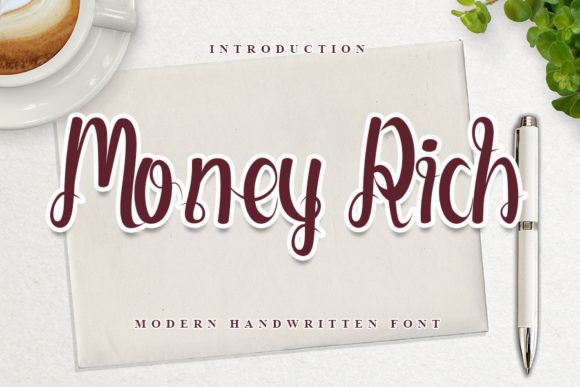
Dive into the world of opulence and extravagance with Money Rich Font, the ultimate font of sophistication and luxury. Crafted by the esteemed Inermedia STUDIO, Money Rich is a captivating script font, meticulously designed to captivate and allure your audience. Its graceful curves and elegant strokes exude an aura of royalty and prestige, ensuring your designs stand out with unparalleled grace.
Unleash your creativity and witness the transformative power of Money Rich Font. This remarkable font effortlessly elevates your visual creations to new heights, adding a touch of exquisite elegance to every letter and symbol. Experience the joy of creating stunning logos, eye-catching social media posts, and breathtaking invitations that radiate opulence.
With Money Rich Font, you hold the key to unlock a world of endless possibilities. Its versatility knows no bounds, enabling you to effortlessly create stunning designs for a diverse range of projects. Discover the joy of crafting timeless wedding invitations that exude romance and charm, or design breathtaking posters that command attention from afar. Whether you're a seasoned designer or just starting your creative journey, Money Rich Font is your perfect companion, guiding you toward design excellence.
Embrace the allure of Money Rich Font and elevate your designs to new heights. Let your imagination soar as you create masterpieces that leave an indelible impression on your audience. Step into the realm of luxury and sophistication with Money Rich Font, the ultimate choice for discerning designers seeking to create unforgettable designs.